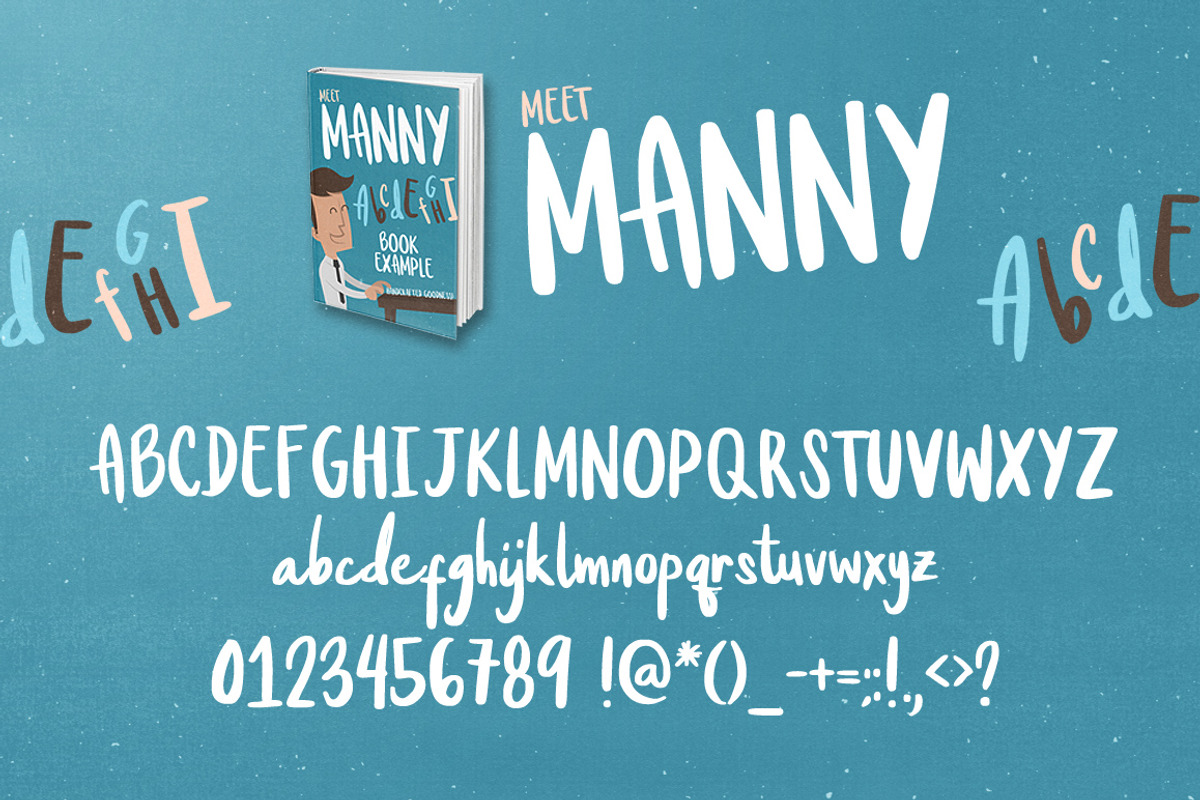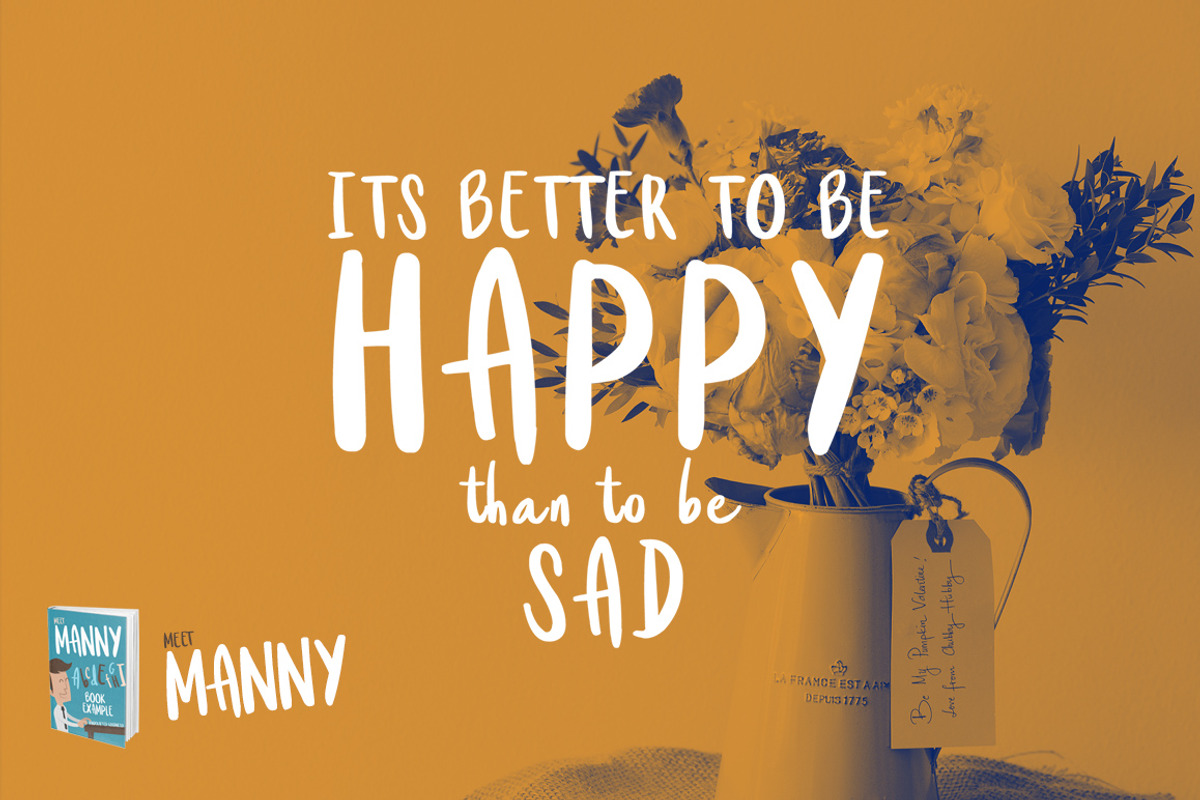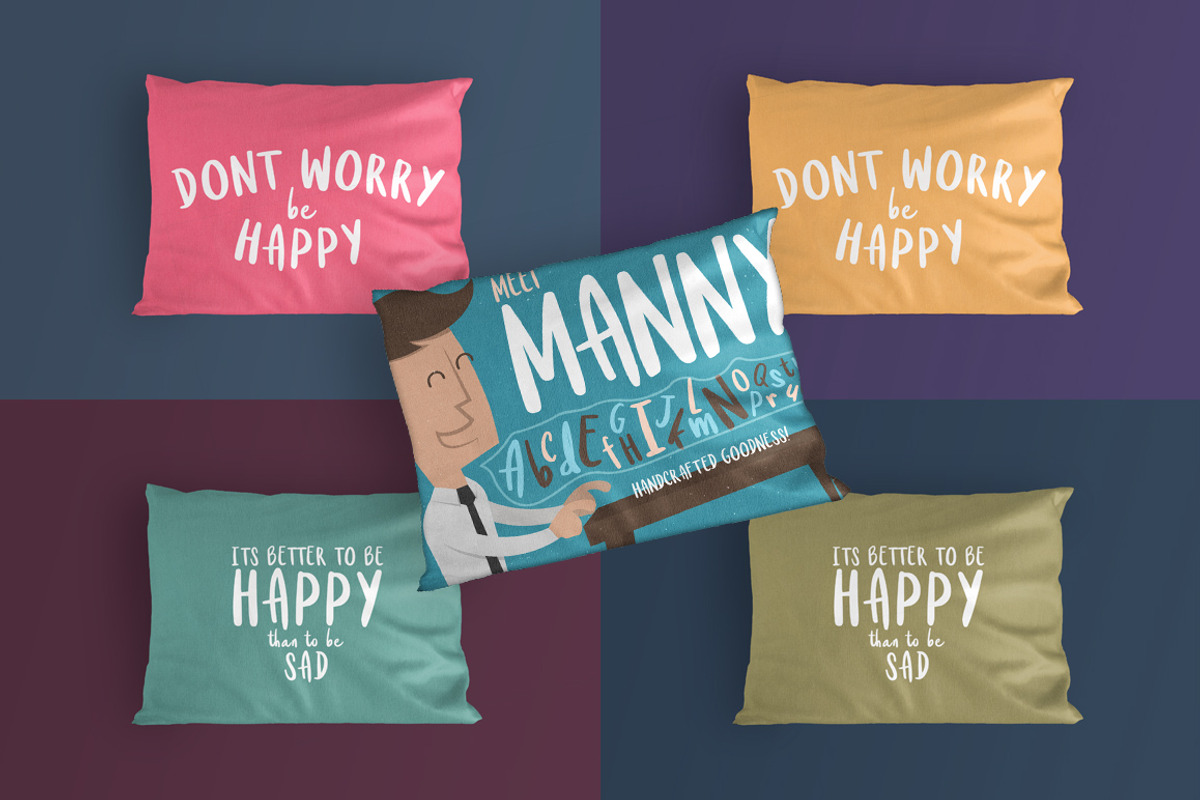
Meet Manny Typeface
Meet Manny Typeface by Layerform Design Co. is a font selected for branding, posters, packaging, typography.
Why Meet Manny Typeface is worth a look
Meet Manny Typeface by Layerform Design Co. fits naturally into Branding, posters, packaging, typography.